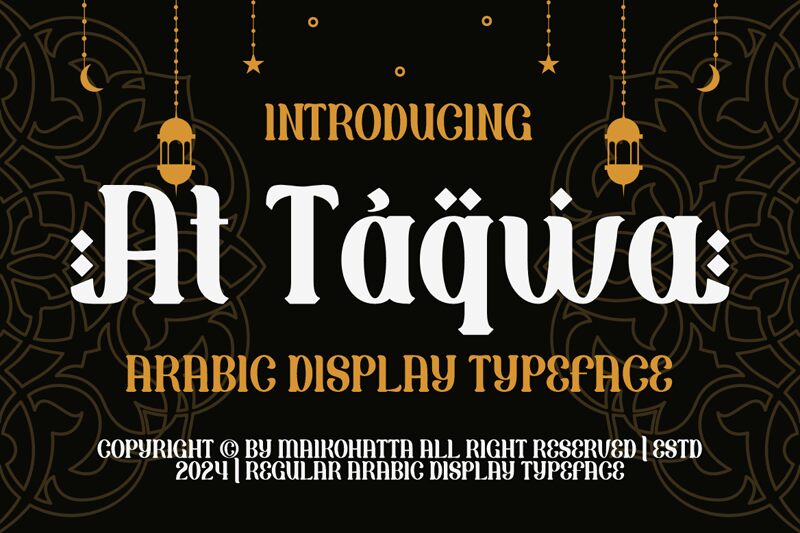
At Taqwa font family, designed by Gilang Ternadho, consists of two font styles capturing classic elements inspired by foreign cultures and symbols. This free font family captivates its audience with a mystifying and enchanting design that beautifully engages with millions of eager readers. The bold aesthetic is noticeable within the feature-rich character set, allowing designers to make the maximum use of its diacritics and symbols.
This Arabic style suitable typeface is ideal for branding projects, especially for stationery designs and packaging items, or presentations and articles. You can combine it with other fonts or use it for book and magazine covers for kids and young adults. Posters can also benefit from the handwritten strokes of At Taqwa that steal the attention of passersby and engage them with the text.